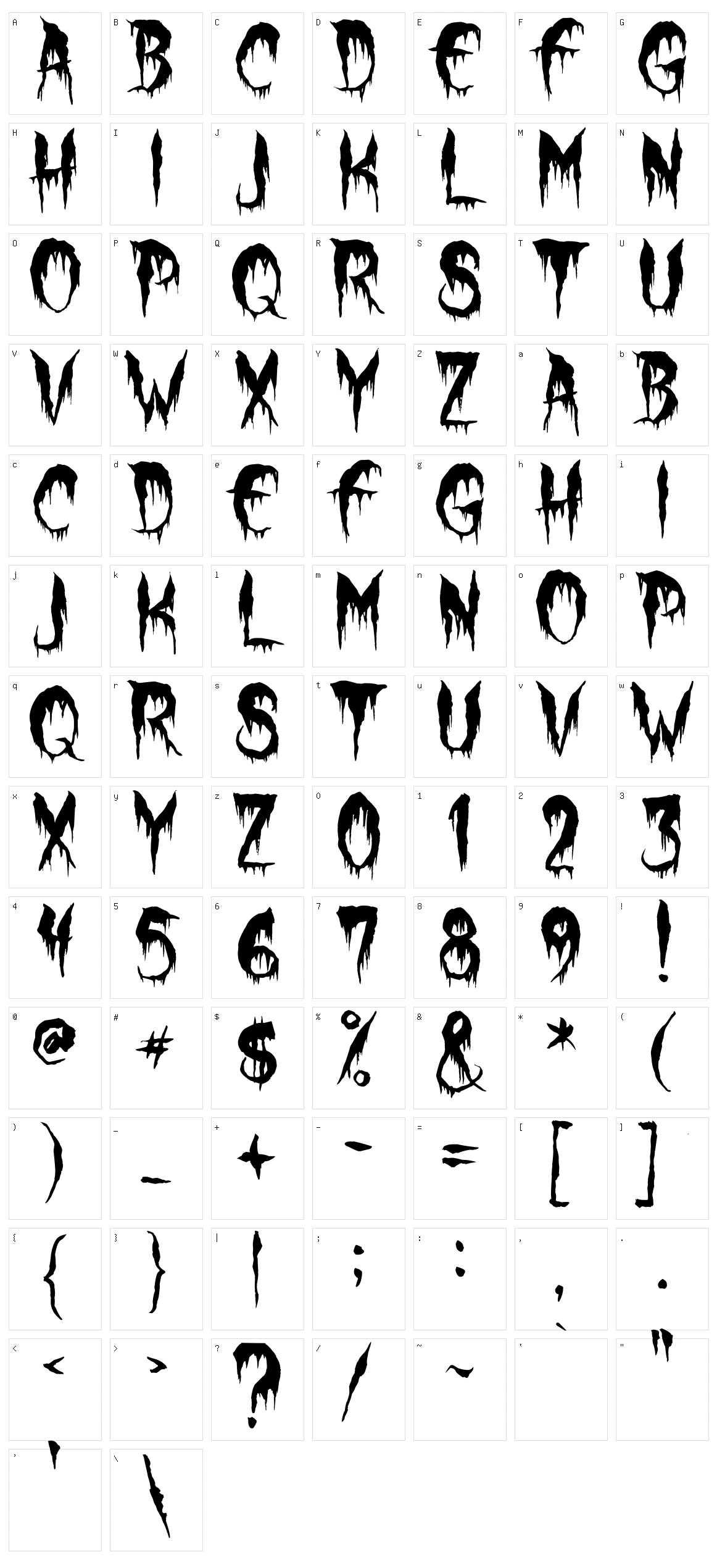
Werewolf Moon Font by Chad Savage
Created 2016, hand-lettered. This font pairs well with Wolf Moon.
This font is intended for specialty and graphic uses. It will look just awful if used in a paragraph format.